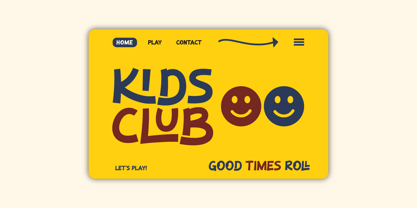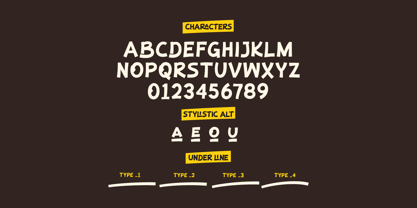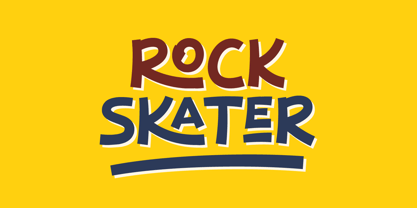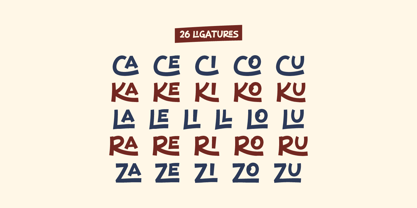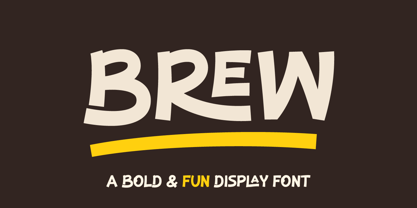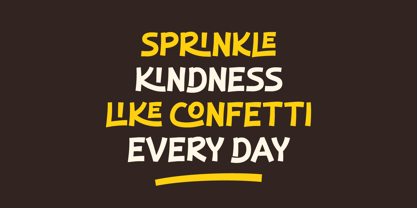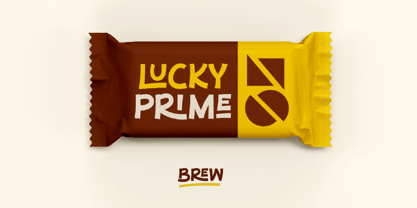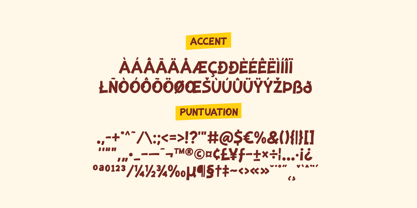
Brew
by Typebae
The Brew Font Family was designed by Iqbal Pauji and published by Typebae. Brew contains 1 styles. More about this family
Brew is a bold and fun display font perfect for playful, energetic designs. It features 26 ligatures and plus stylistic alternates featuring underline accents for A, E, O, and U, giving your typography extra flair and a custom feel. Ideal for kids' projects, streetwear branding, posters, merchandise, and creative social content. Add Brew to your font collection and bring bold, playful energy to your next design project.
Designers: Iqbal Pauji